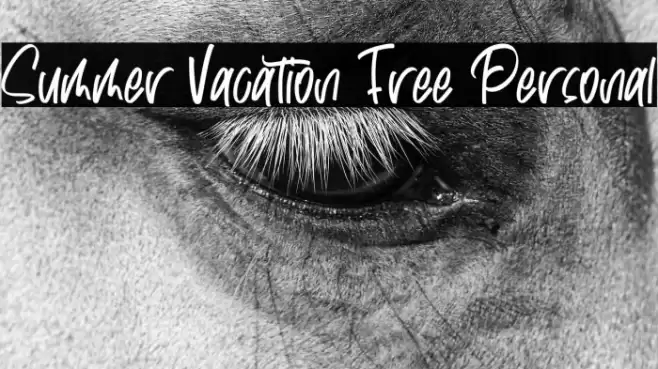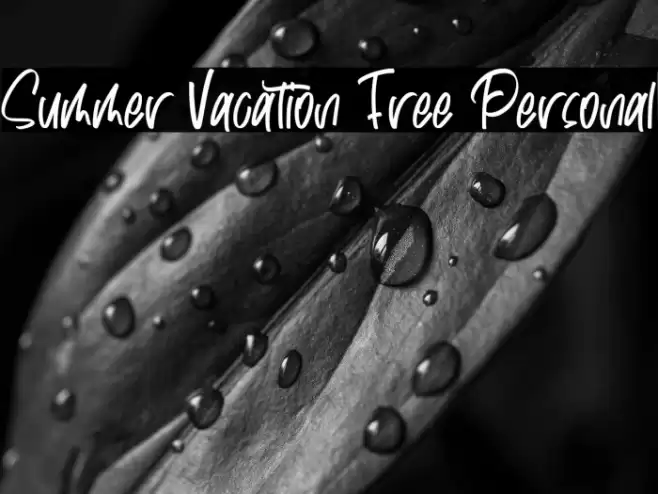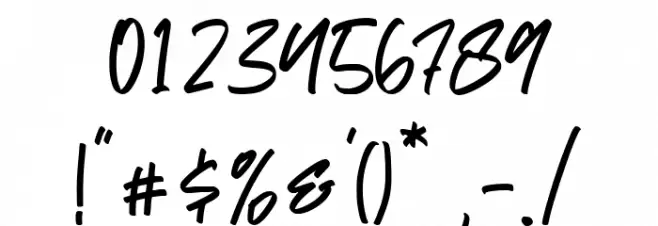
Summer Vacation Free Personal Font
Summer Vacation Free Personal Description
This font exudes a casual and playful vibe, characterized by its handwritten style that mimics a natural, flowing script. The letters are slightly slanted, giving a dynamic and lively appearance. The strokes are smooth and consistent, with a medium thickness that ensures readability while maintaining an informal look. The uppercase and lowercase letters are well-balanced, and the numerals and special characters complement the overall style. This font is perfect for projects that require a personal touch, such as greeting cards, invitations, or social media graphics.
A casual, handwritten font with a playful and dynamic style from Regular fonts.
- Proposed Projects: Ideal for greeting cards, invitations, social media graphics, and personal branding.
- Overall Style: Casual
- Use Case: Headlines, Logos, Informal Text